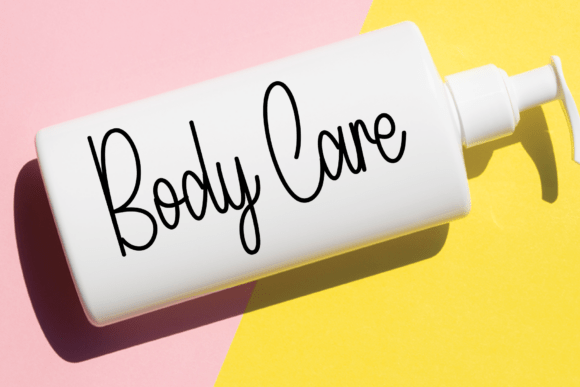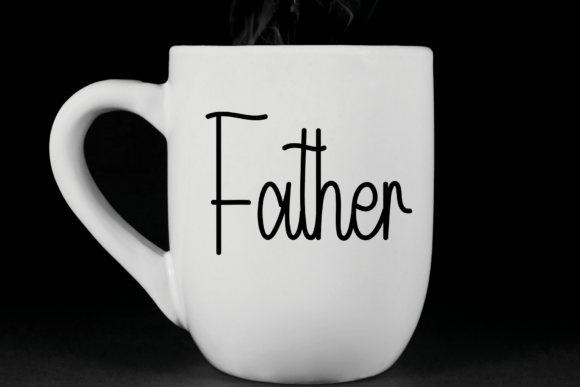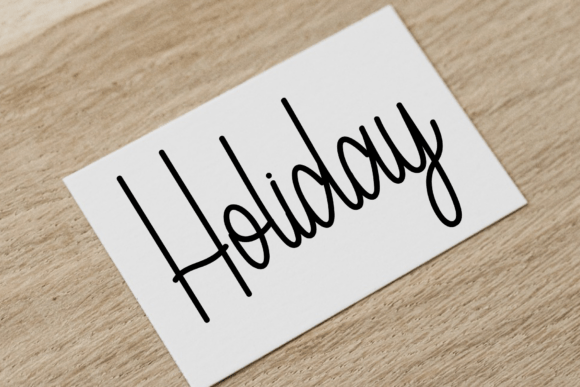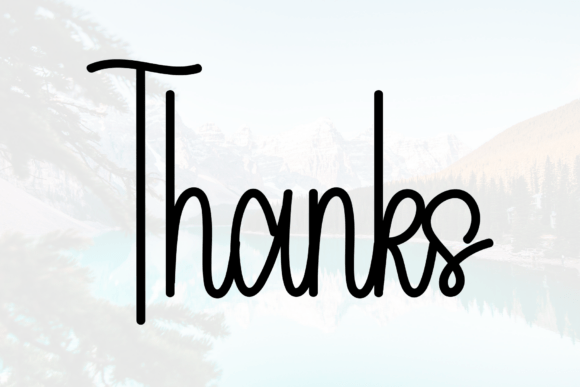
Get Cozy with Your Designs: Discover the Charm of Chick Garden Font
Have you ever been working on a design project, pouring your heart and soul into it, only to feel like it’s missing that special something? You know, that spark that makes it truly unique and captivating? For many designers, that missing piece is a beautiful and charming font that adds a personal touch to their work.
That’s where the lovely Chick Garden Font comes in – a sweet and beautiful handwritten font that’s perfect for adding a cozy accent to any design project. With its playful, dance-along characters, this font is sure to bring a smile to your face and a warmth to your designs. Whether you’re working on a wedding invitation, a children’s book, or a home decor project, the Chick Garden Font is a valuable addition to your design toolkit.
Chick Garden Font Key Features
- Unique Characteristics: The font features a unique, hand-drawn design with a whimsical and playful feel, making it perfect for children’s books, gardening-related content, and other projects that require a friendly and approachable tone.
Designer Review: Chick Garden Font
Overall, I think Chick Garden Font is a cute and playful font that could work well for certain projects. Here are some of its strengths:
- ✨ Unique character: The font has a distinct, hand-drawn feel that sets it apart from more generic fonts.
- ✨ Whimsical vibe: Chick Garden Font has a lovely, carefree quality that’s perfect for projects that need a lighthearted touch.
- ✨ Customization options: The font comes in several styles and weights, which gives users a bit more flexibility in terms of customization.
- ⚠️ Readability issues: At certain sizes, the font can become difficult to read due to its irregular letterforms and loose connections.
- ⚠️ Overuse potential: The font’s playful nature makes it easy to overuse, which could result in a lack of visual interest or professionalism.
Overall, I think Chick Garden Font is a solid choice for projects that require a lighthearted, whimsical touch. Just be mindful of its limitations and use it judiciously to avoid readability issues and overuse.
Practical Application Guide for Chick Garden Font
For a cohesive look, pair the Chick Garden Font with complementary fonts and colors.
Use the Chick Garden Font to add a whimsical touch to your designs.
Use the Chick Garden Font to add a playful touch to your presentations and documents.
The Chick Garden Font is perfect for:
- Children’s books and educational materials
- Wedding invitations and party decor
- Food and garden-themed designs